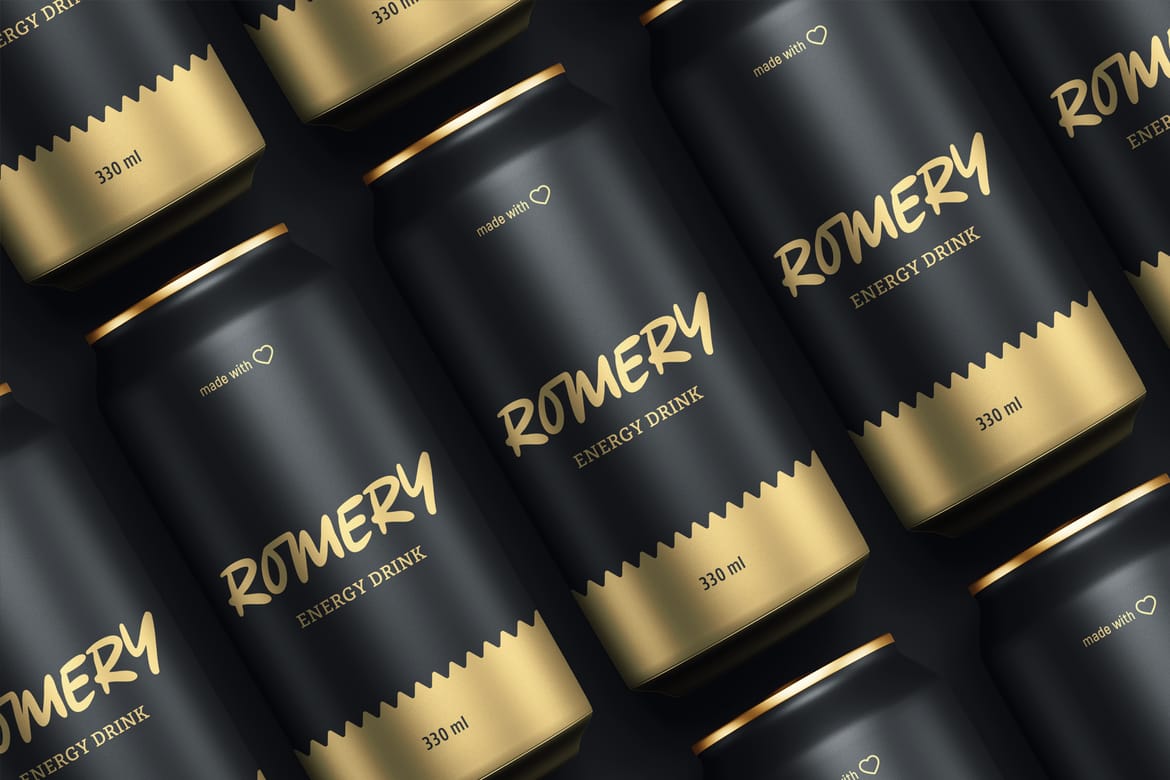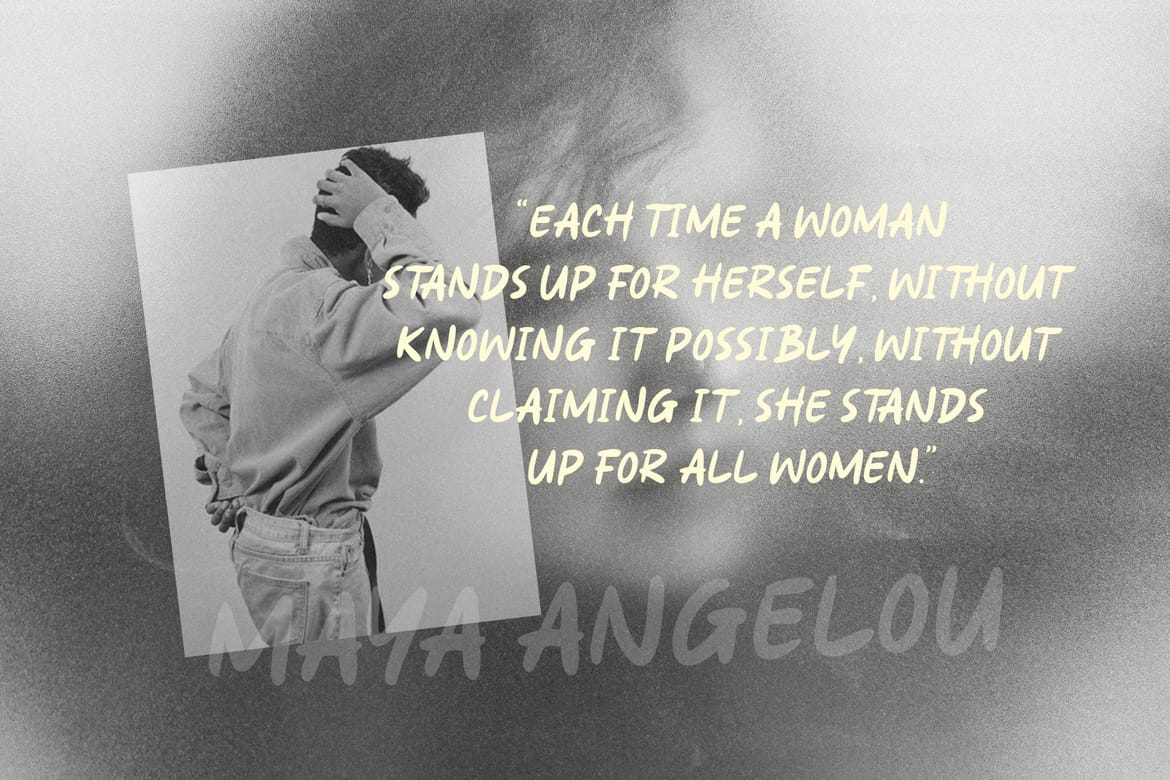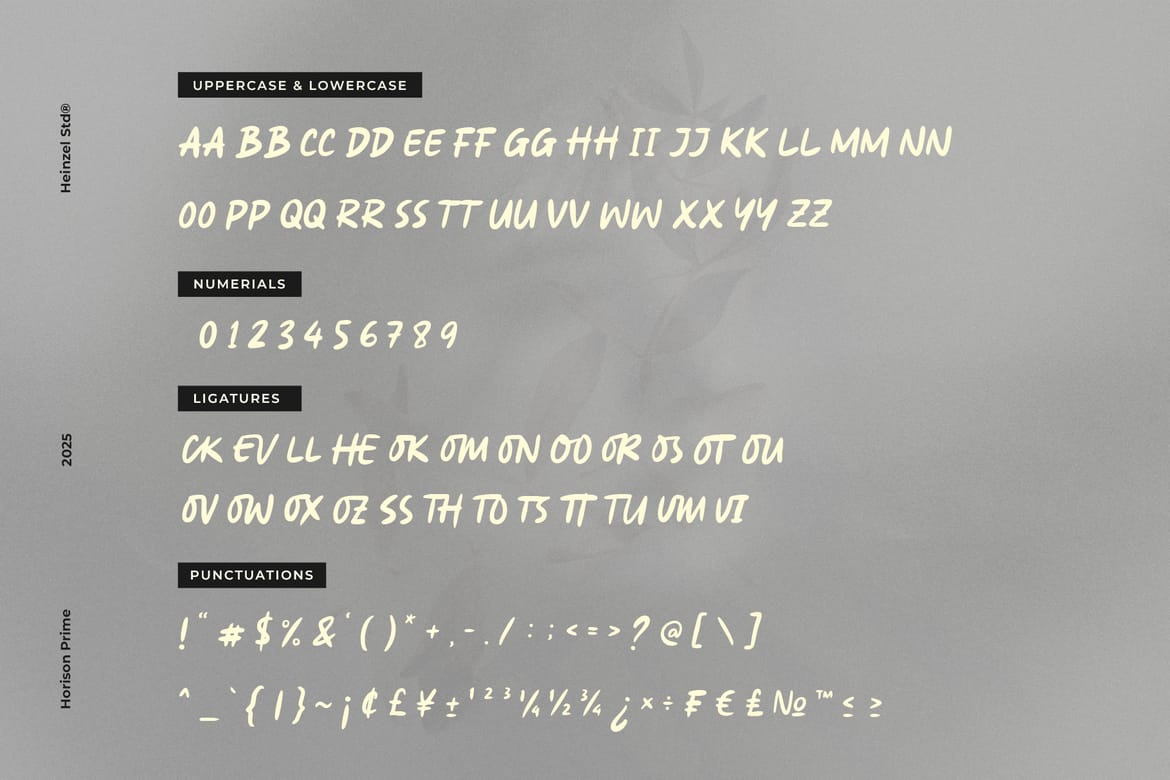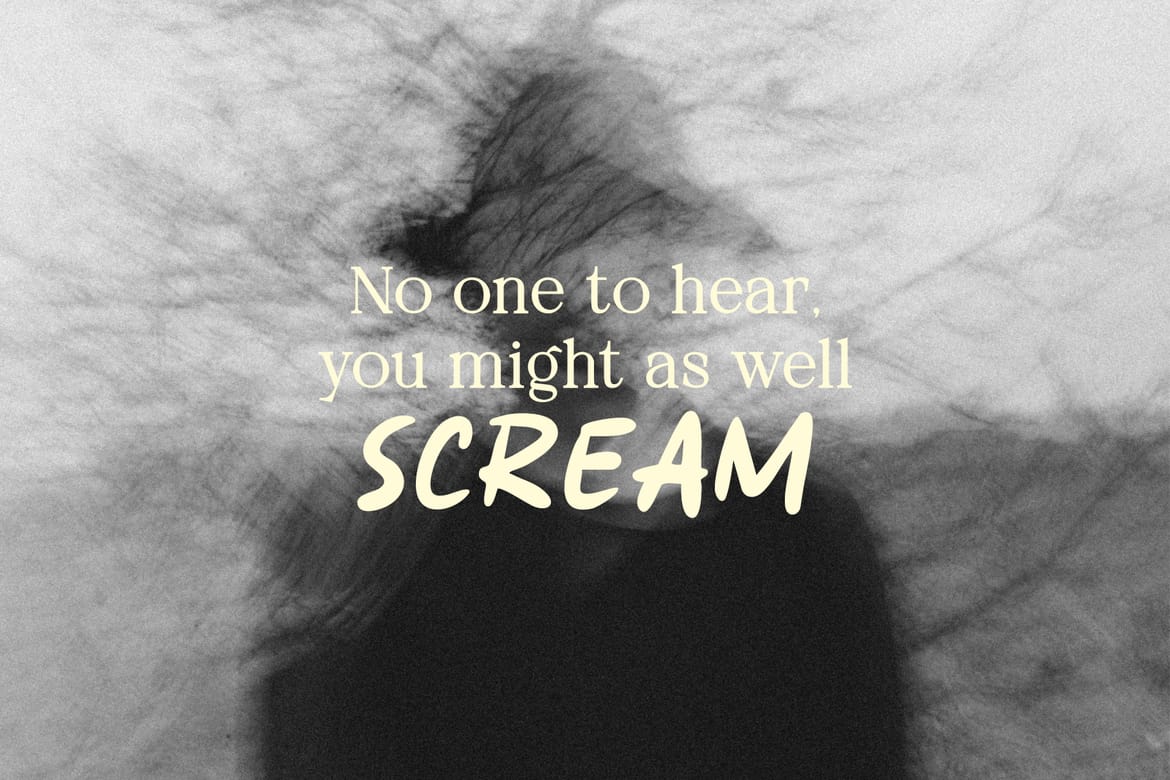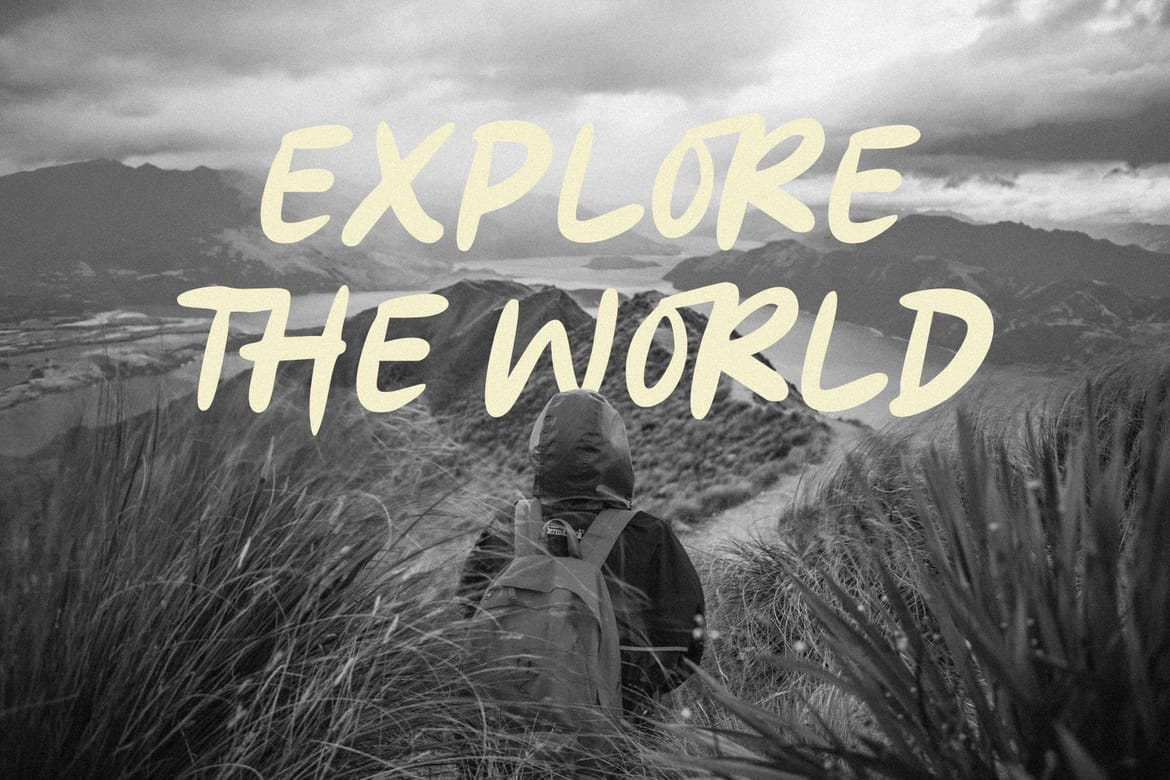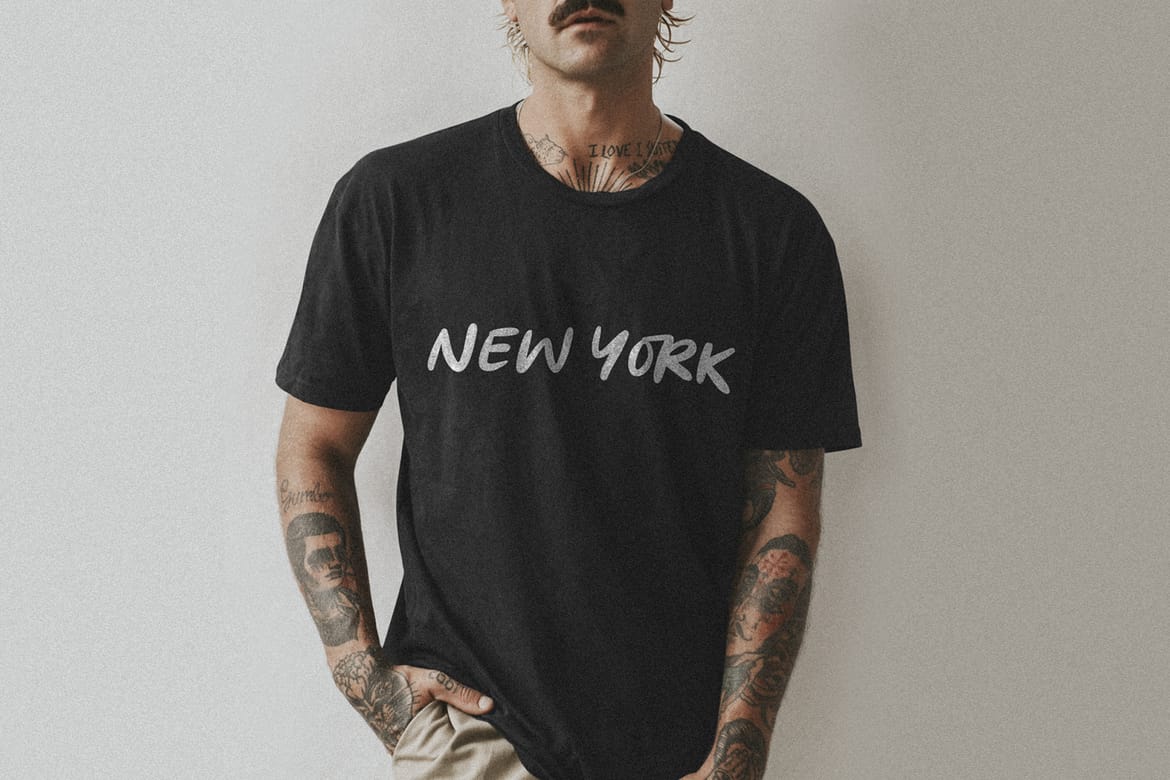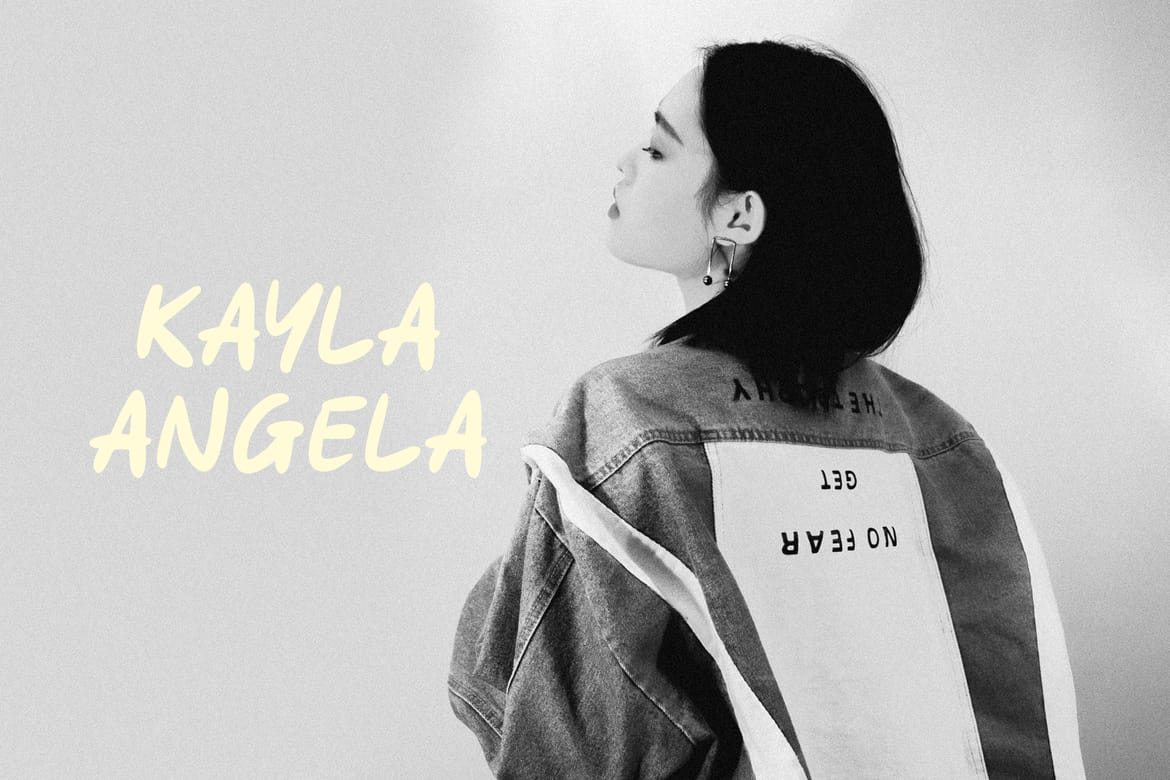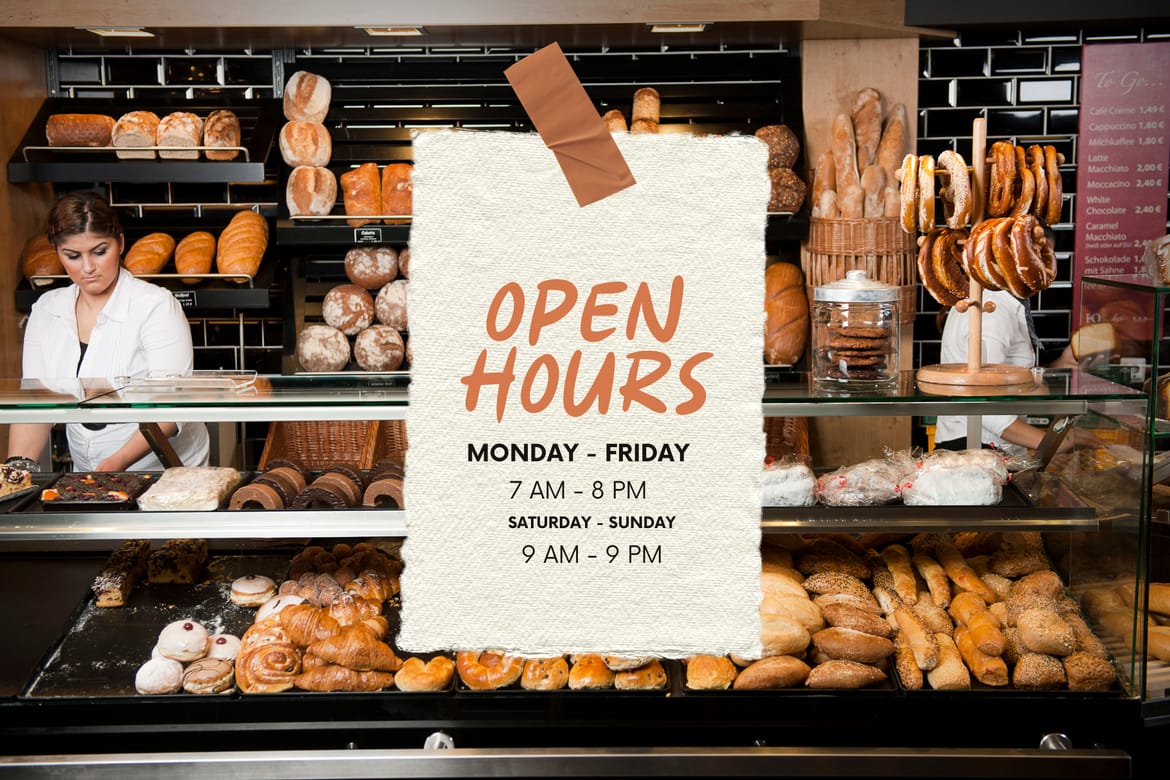
Horison Prime is a bold and stylish all-caps handwritten font designed to add a personal, handcrafted touch to your creative projects. With smooth organic strokes and a modern casual vibe, this font is perfect for branding, logos, posters, packaging, social media, and editorial design. Its eye-catching letterforms bring energy and authenticity to your work, while multilingual support and ligatures ensure seamless usability across various languages and layouts.
Ideal for designers, creatives, and brands seeking a unique handwritten look, Horison Prime offers a versatile typeface that stands out in both print and digital media. Elevate your designs with the natural charm and expressive personality of Horison Prime.
- All Caps Handwritten
- Multilingual Support
- Ligatures